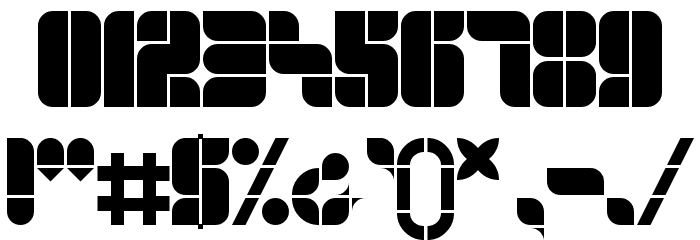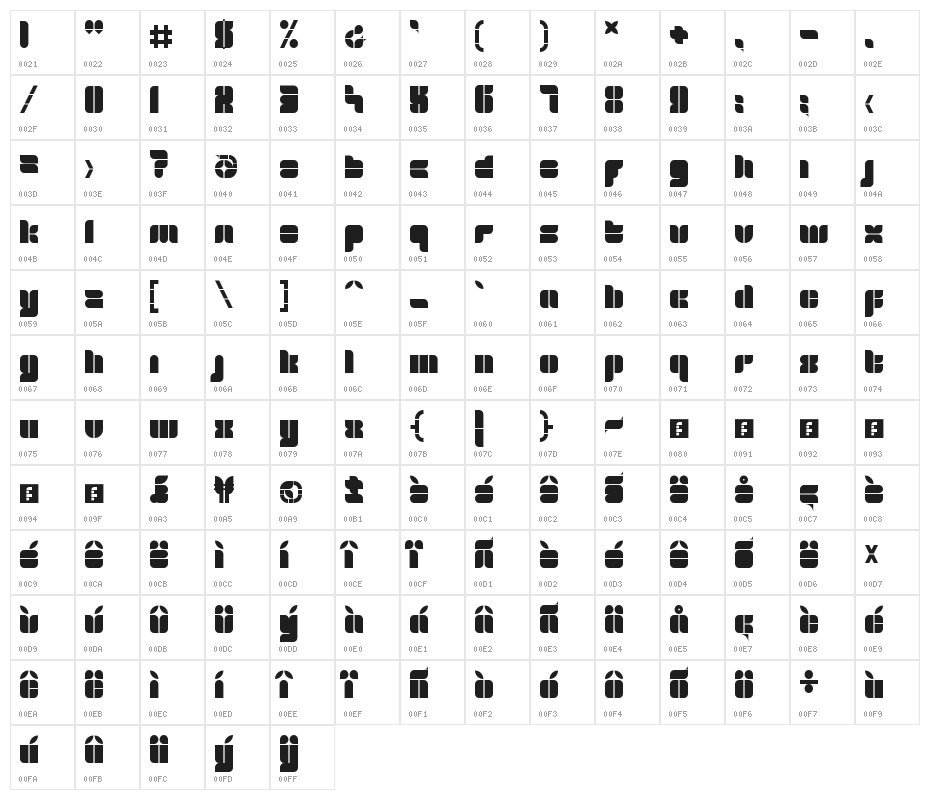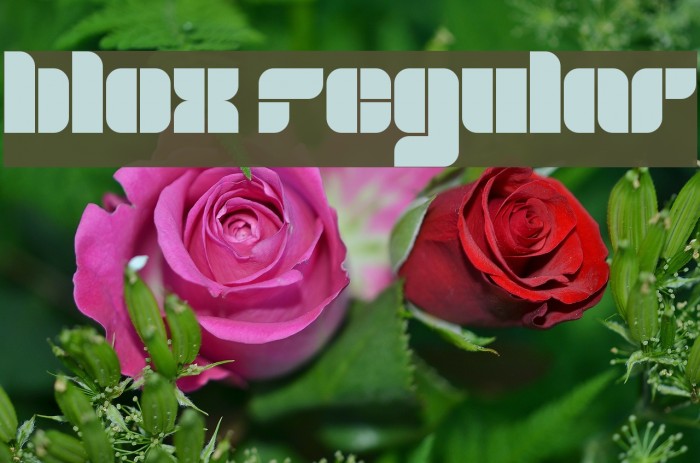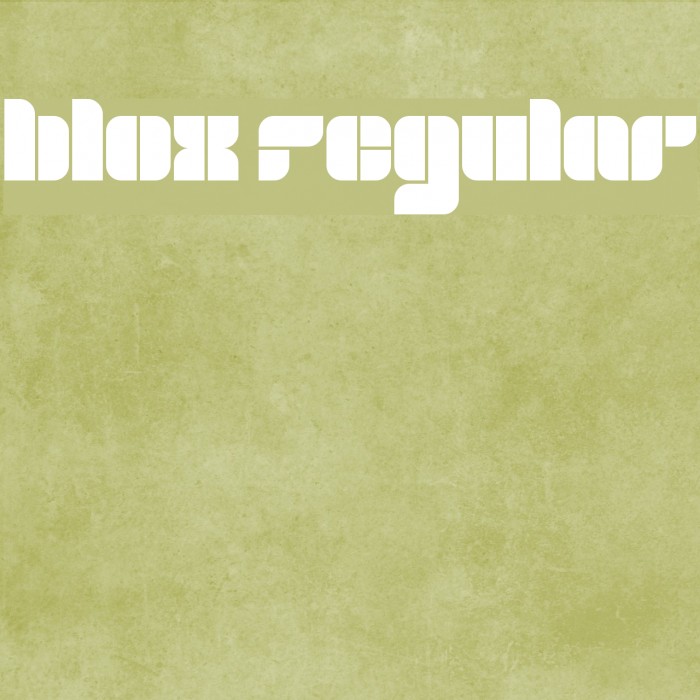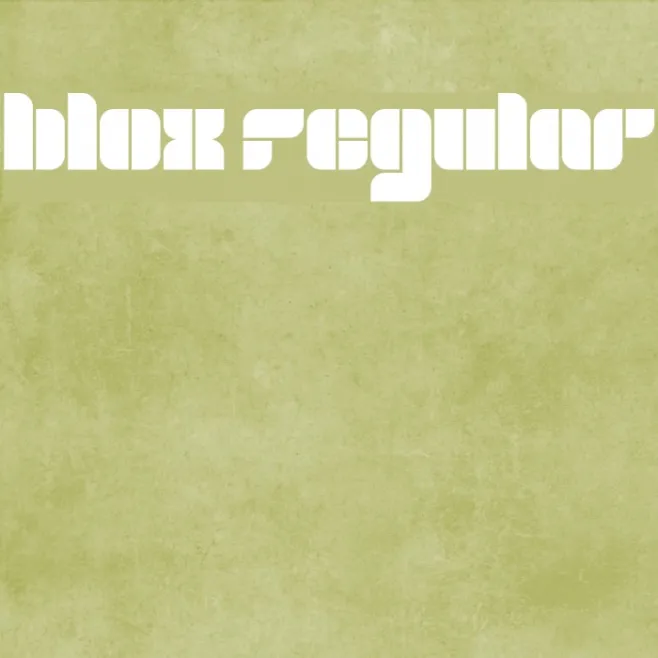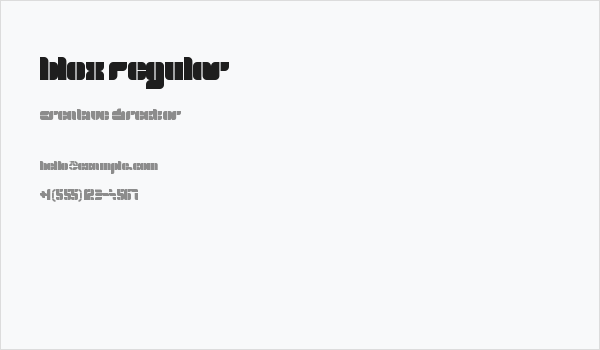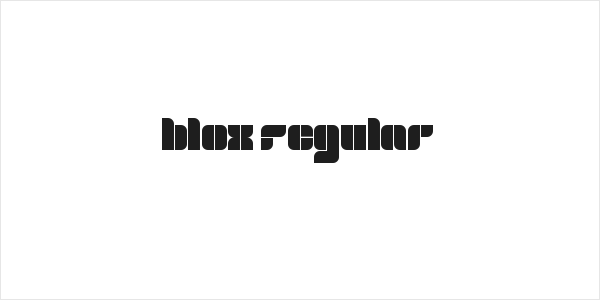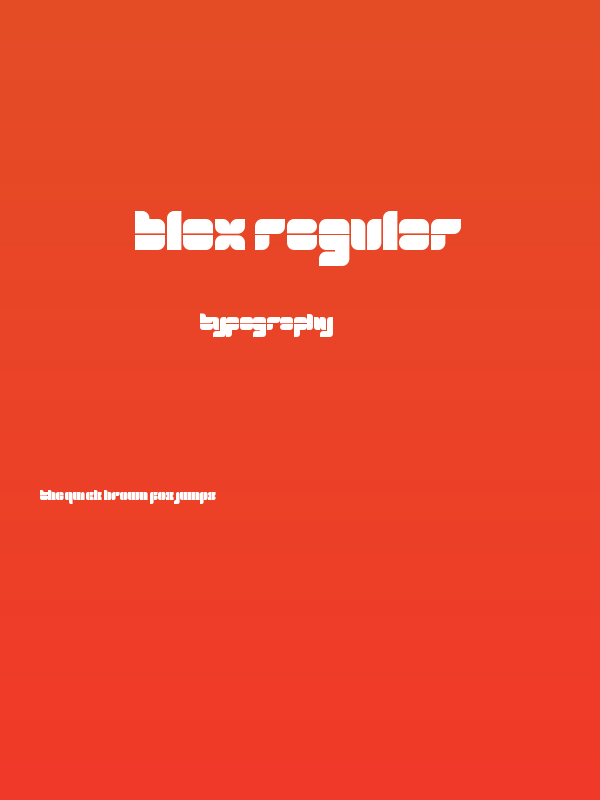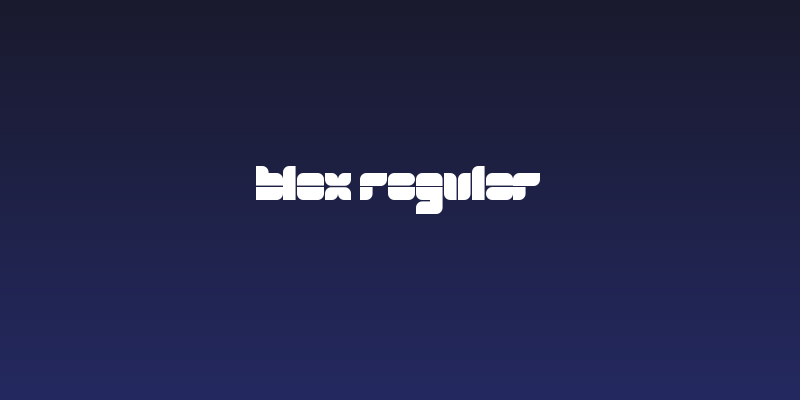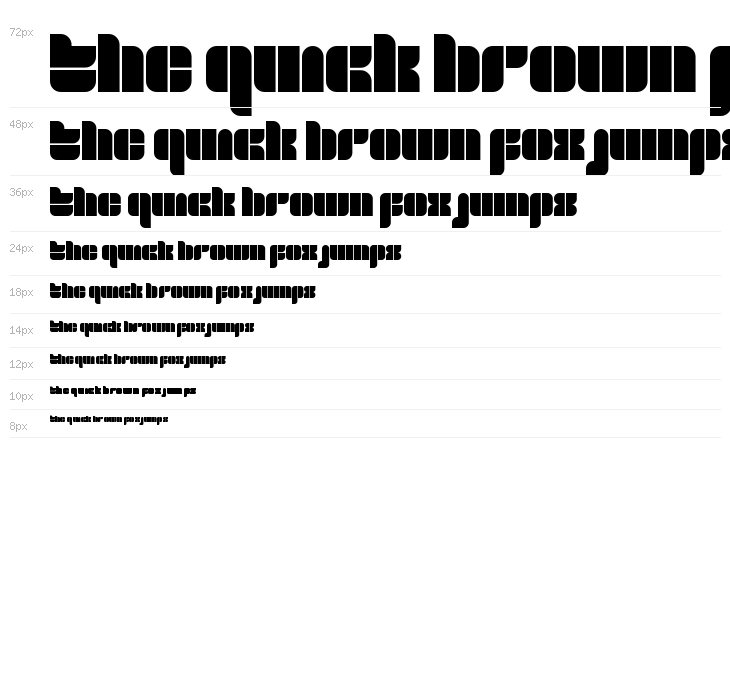
blox Regular Font
blox Regular Description
This font features a bold, geometric design with a strong emphasis on block-like shapes. Each character is constructed with a series of interconnected rectangles and circles, creating a futuristic and digital aesthetic. The uniformity in stroke width across all characters gives it a cohesive and structured appearance. The uppercase and lowercase letters maintain a consistent height, contributing to its monospaced feel. The numbers and special characters follow the same design principles, ensuring visual harmony throughout. This font's unique style makes it stand out, ideal for projects that require a modern and tech-savvy look.